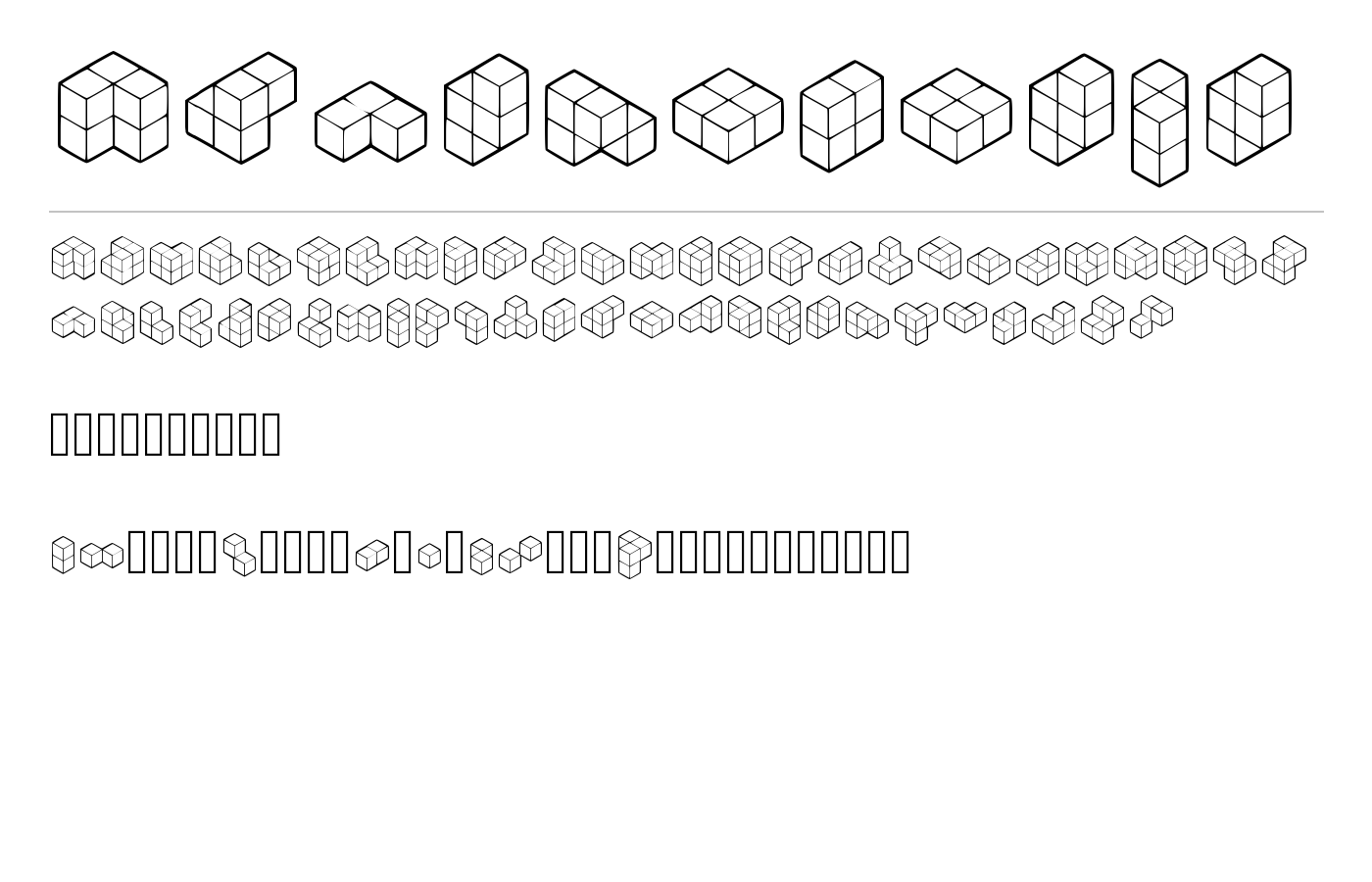
Anastomosis is a distinctive display font that features an isometric, geometric design resembling interconnected cubes. Its outlined, three-dimensional letterforms create a playful and modern look, making it ideal for eye-catching logos, posters, or creative branding where a unique, tech-inspired style is desired. This font works best in large sizes and artistic contexts, as its intricate shapes prioritize visual impact over readability.
Anastomosis Font
About Anastomosis Font